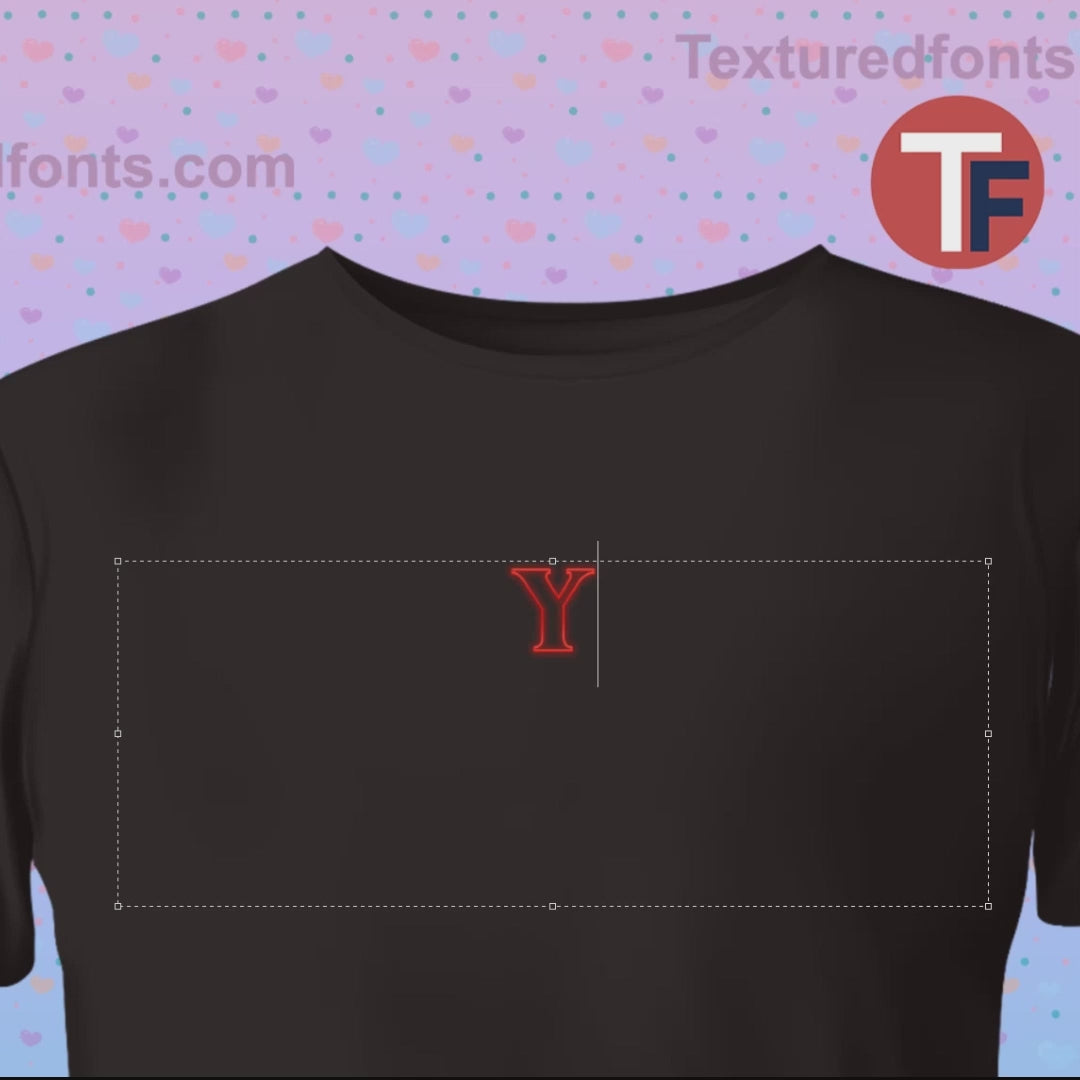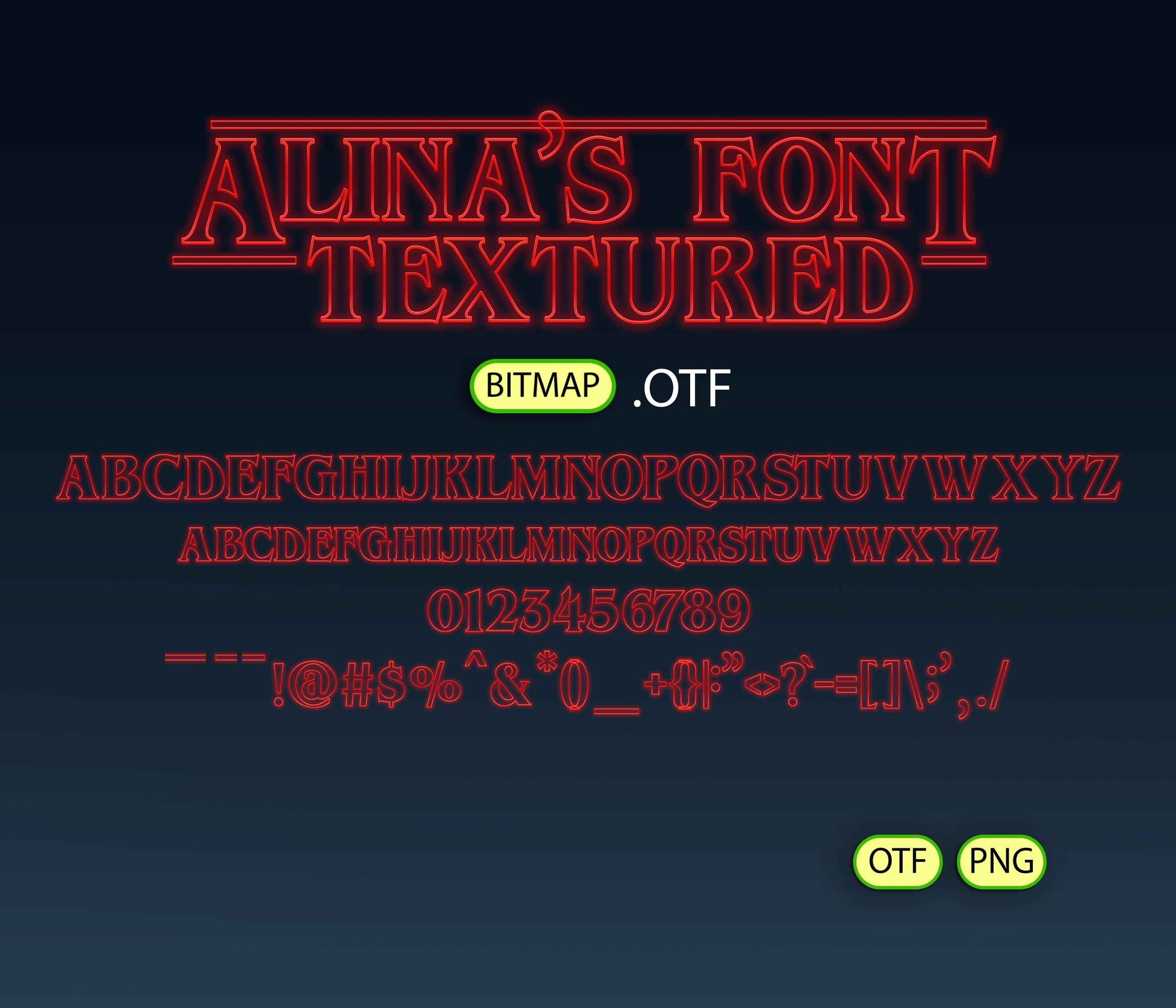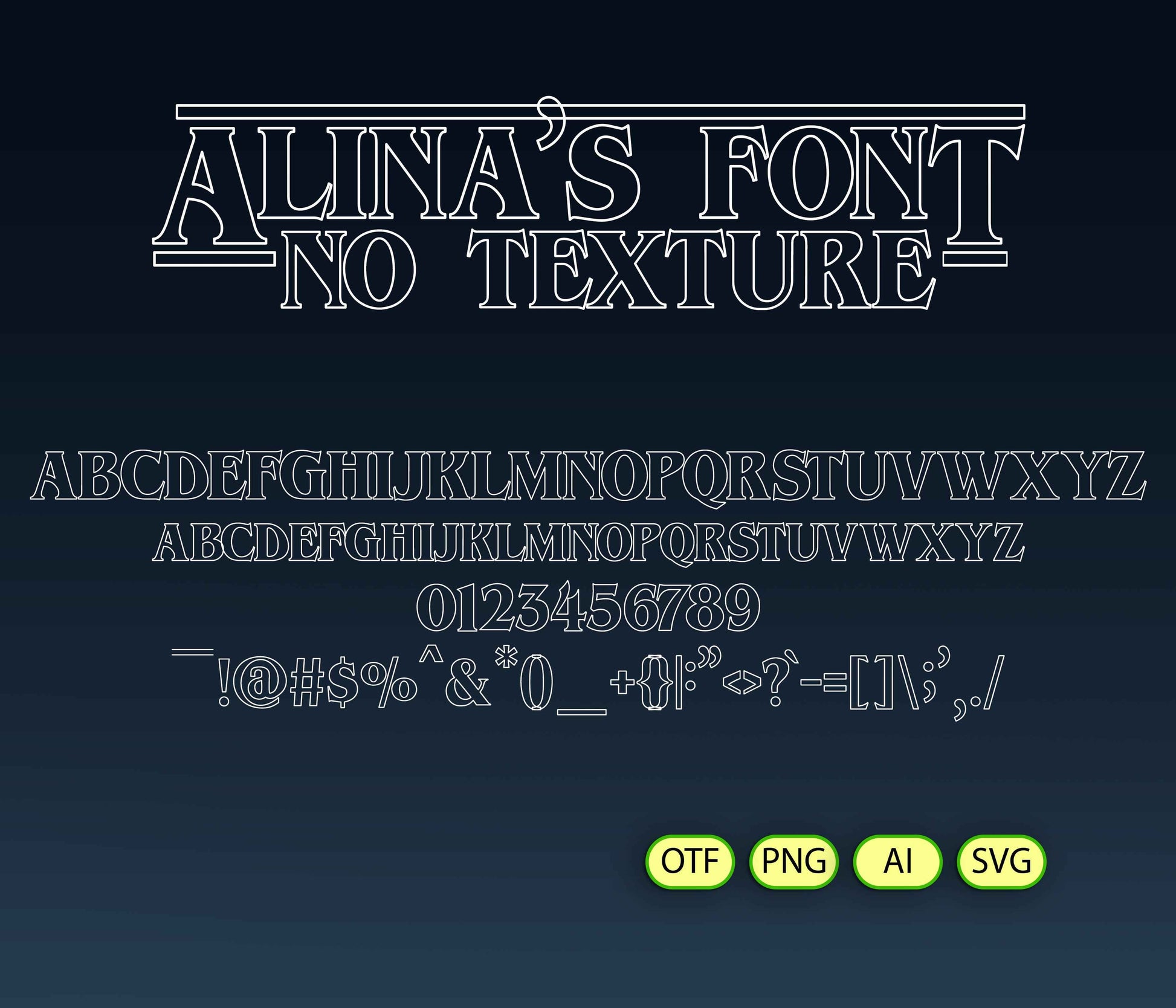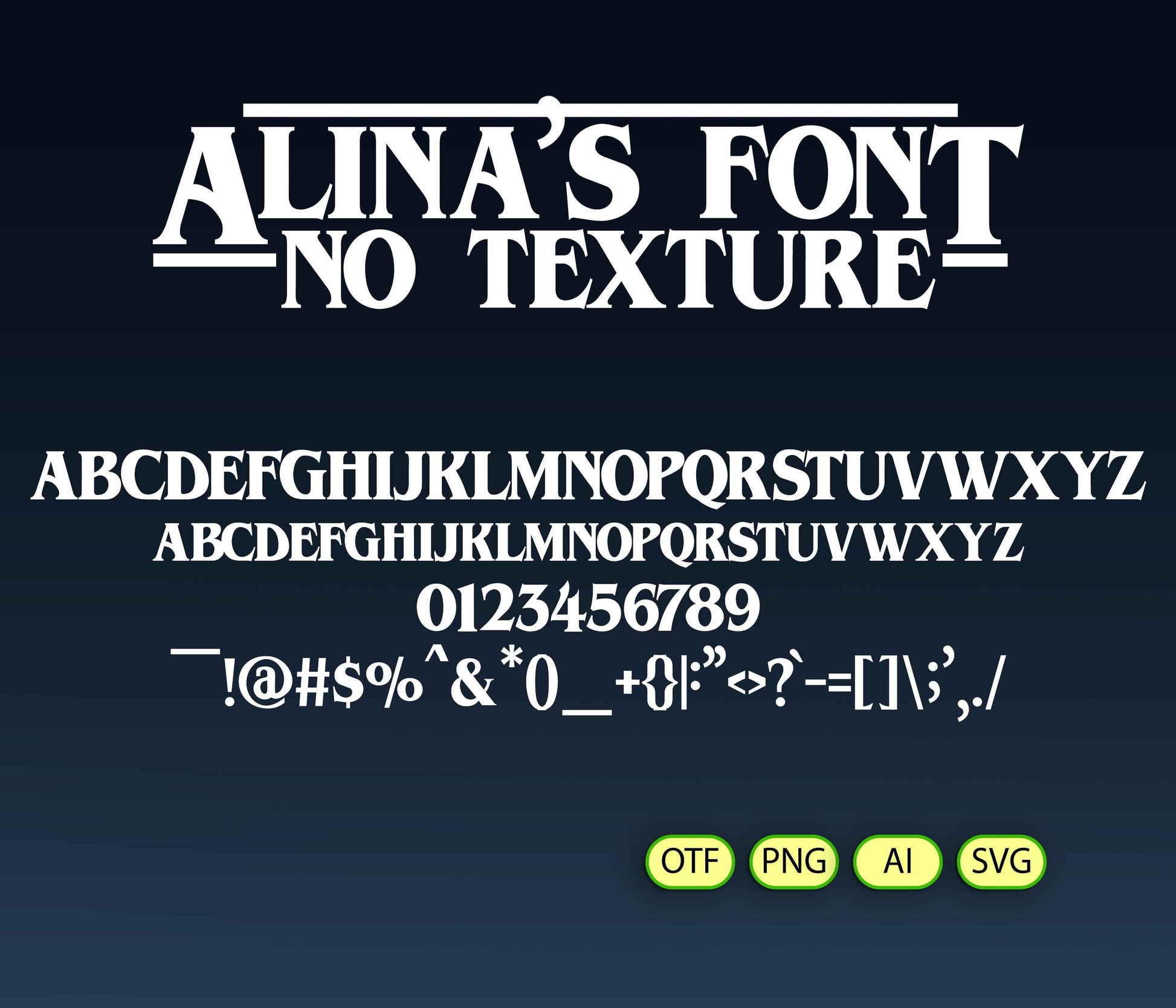
Hawkins Font Textured
Unlock the Mystery with the Hawkins Font
Immerse your designs in the eerie, nostalgic world of Hawkins, Indiana, with our Hawkins-inspired font. Ideal for fans of an iconic series and designers looking to infuse their projects with a touch of 80s thriller aesthetics, this font captures the suspense and supernatural vibe of the show. Whether you're creating promotional materials for themed events, designing merchandise, or crafting engaging digital content, our font ensures your creations resonate with intrigue and excitement.
Drawing inspiration from the distinctive title sequence of a beloved 80s-themed thriller, this font features bold, clean lines with a slightly distressed, retro feel that harks back to 1980s typography. The character set includes uppercase and lowercase letters, numbers, and special symbols, making it versatile for a wide range of applications:
To ensure broad usability and flexibility, our Hawkins-inspired font includes both textured and non-textured variants. The non-textured version is especially practical, ensuring compatibility with all types of software, including Canva. This makes the font incredibly easy to use, whether you're a professional designer or a hobbyist, enhancing accessibility and convenience across various platforms and projects.
Explore the Unknown in Every Design
Our Hawkins font not only pays homage to the series but also empowers you to bring a piece of its captivating universe to your creative work. With its impactful style and adaptable application, this font allows you to communicate with the energy and mystery synonymous with the show. Ready to venture into the unknown with your next project? This font is your gateway to crafting visually striking and thematically consistent designs that fans and newcomers alike will love.
Many people seek out a Hawkins Font generator online to mimic the look of the Hawkins Font. Steer clear! No font generator can match the quality of this Hawkins Font, which comes in two versatile versions: a textured colored Hawkins font and a simple Hawkins font. This is particularly beneficial if you plan to use it with a cutting machine.